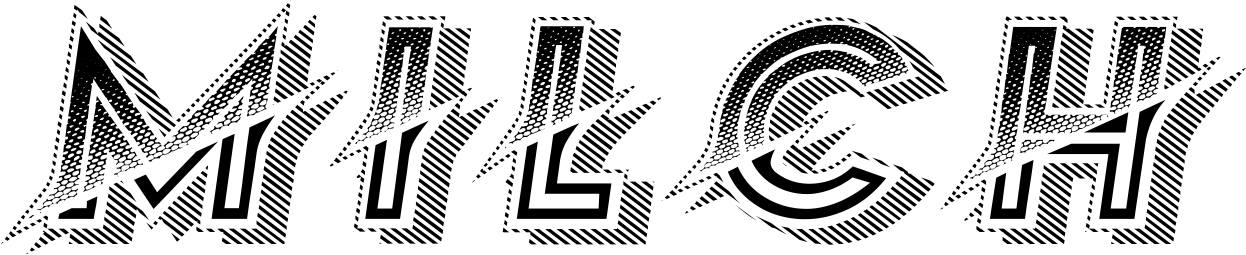
Milch Font
Milch fonts hatched and grid designs are mainly used to create car brands, such as logotypes. This 3D font does not include lowercase letters and numbers.
But due to the outline and diagonal line characters, it’s highly recommended to use, especially for superhero movie posters like Batman and race car battles. So, if you want to design something bold and powerful for your next projects, this superhero font is here to make your dream come true.